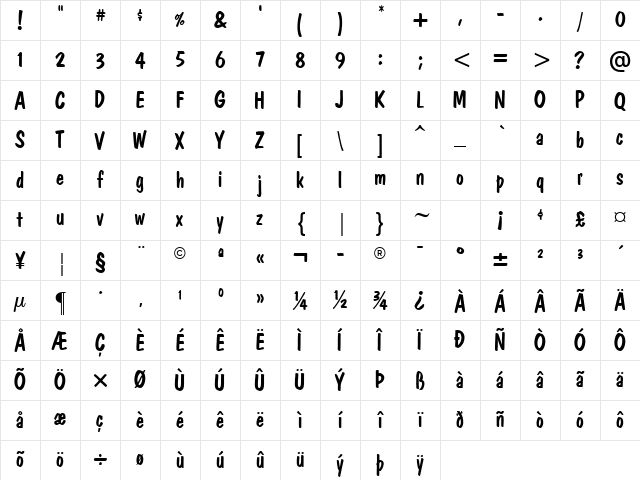
Dom Very Casual Regular
Complete Dom Very Casual Regular glyph index. Displaying only characters natively supported by Dom Very Casual Regular font.
Design Context for Dom Very Casual
Dom Very Casual is a composed and adaptable typeface that performs quietly and consistently across a wide range of design contexts.
Pro Tip: Use Dom Very Casual in both headline and body roles to test its range before committing to a single application.